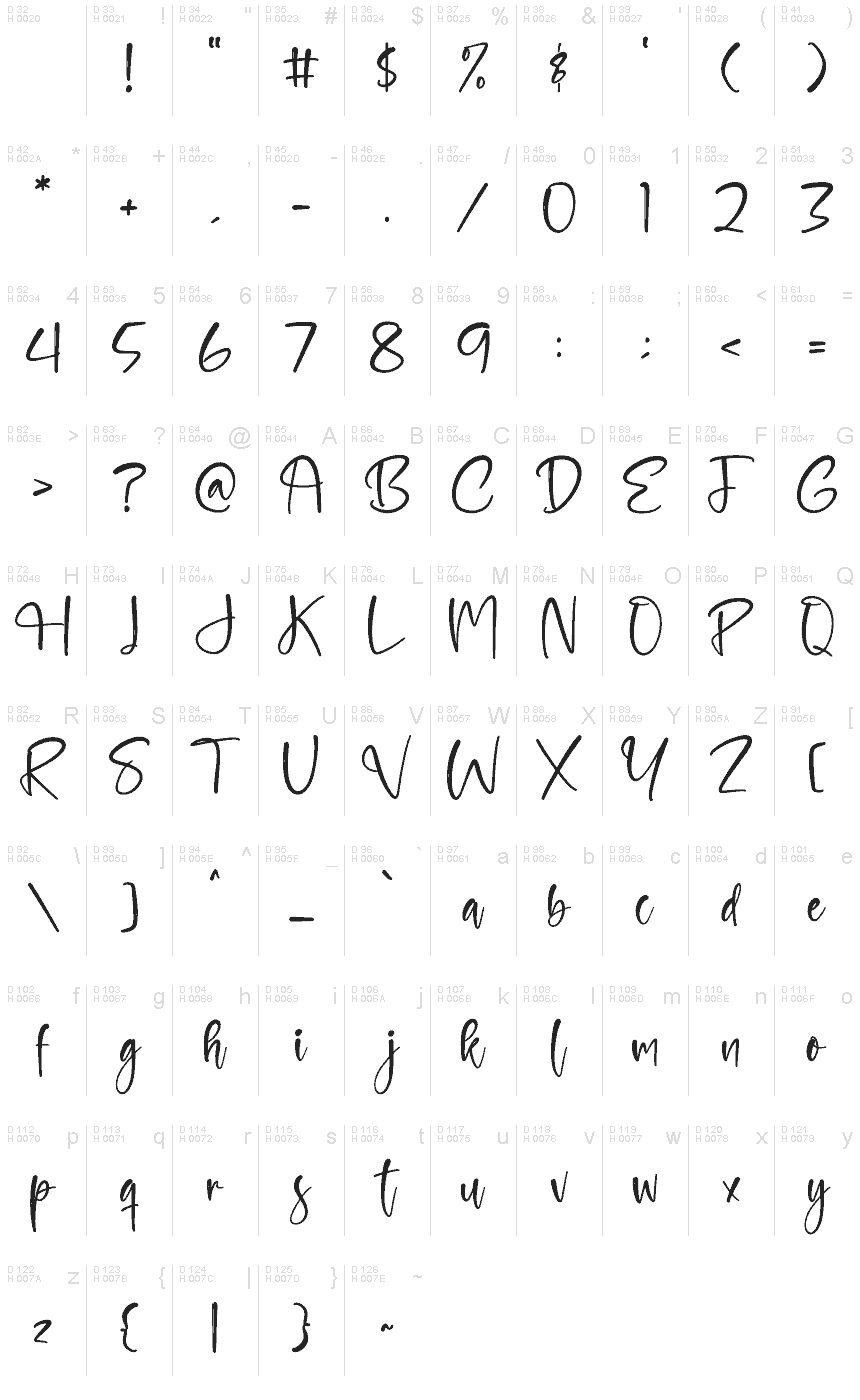
trevolak
Trevolak font is a free handwritten font by Letterena Studios that shines for its extremely modern and casual features. Artistic flair, expressiveness, and fluid motion are among the most cherished qualities of this typeface ready for impactful projects requiring a personal approach.
This resource fits posters, invitation cards, social media covers, web design projects, branding projects, ad campaigns, flyers/leaflets design, stationery items and templates such as presentations.